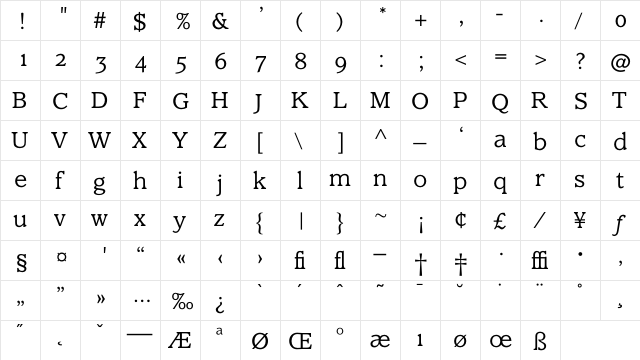
ClaremontLightOS Regular
Design Context for ClaremontLightOS Typeface
ClaremontLightOS offers clean, dependable letterforms without strong stylistic allegiance, making it a practical choice for designers who need flexibility. The delicate stroke weight brings airiness and refinement to layouts.